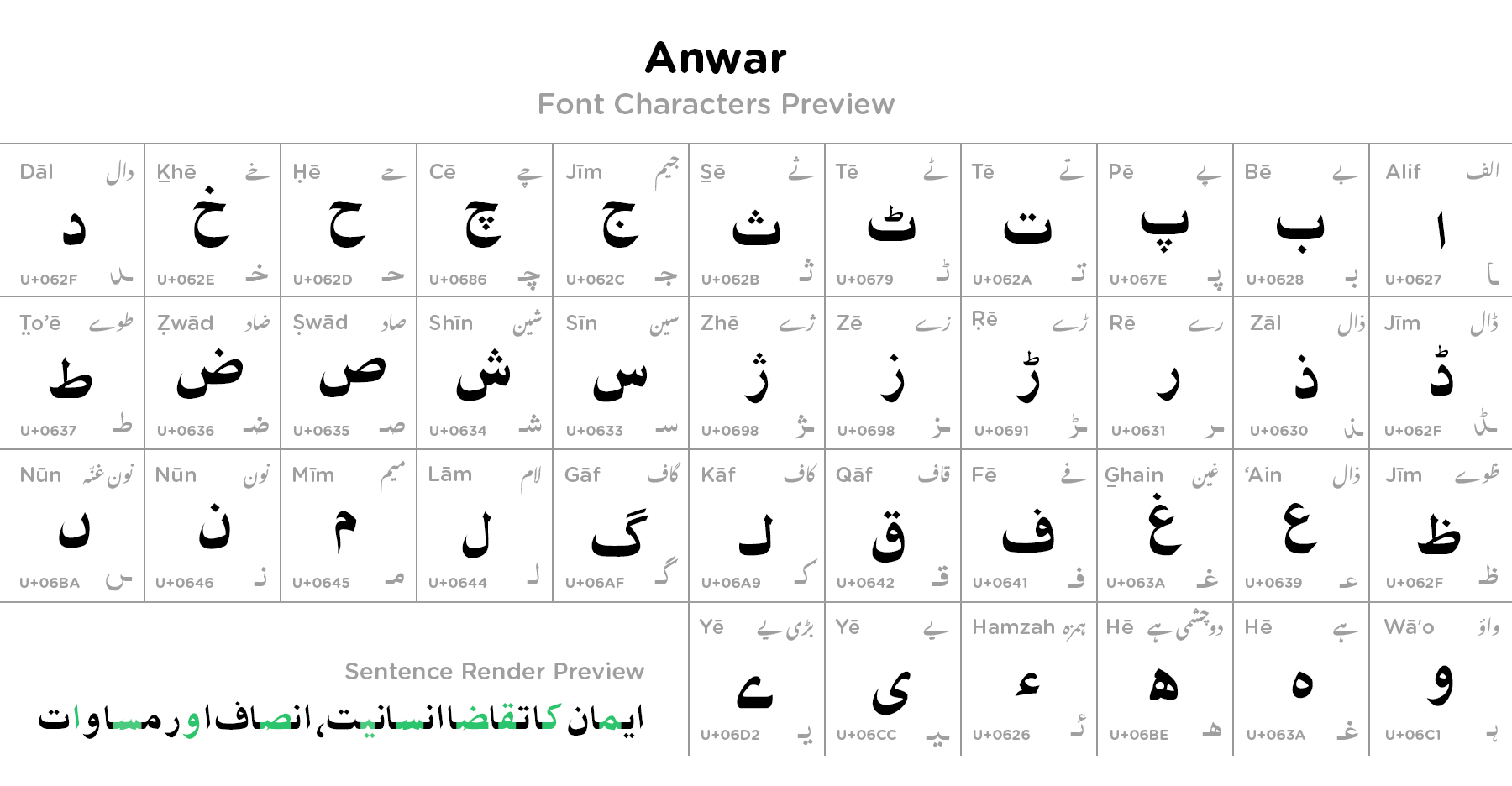
Anwar is a TrueType Arabic font crafted by Syed Manzar Hasan Zaidi during his tenure at Axis Softmedia Pvt. Ltd. This font is exclusively owned by Axis Softmedia Pvt. Ltd. Boasting an extensive character set of 444 and 497 glyphs, Anwar extends its support beyond Arabic to include Latin and Greek scripts. Additionally, it seamlessly aligns with 11 Unicode blocks, encompassing Basic Latin, Arabic, General Punctuation, Currency Symbol, and more. It is an elegant font based on the Naskh script, represented in its symmetrical presence, perfect for writing Urdu, Arabic, Hindi, and more. It is a beautiful Arabic font that is perfect for creating Islamic designs and artwork along with logos, visuals, headings, body text, and much more. This is due to its unique and stylish design, which combines traditional Arabic calligraphy with modern elements. The letters are balanced, filled with sharp edges, and rounded curves, making it an attractive choice for designers.